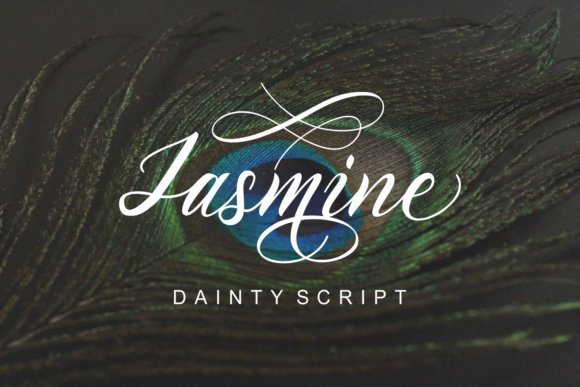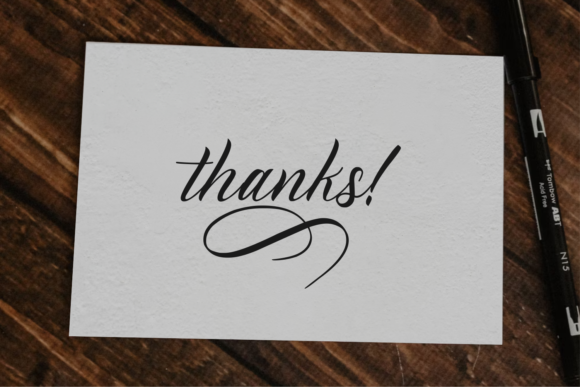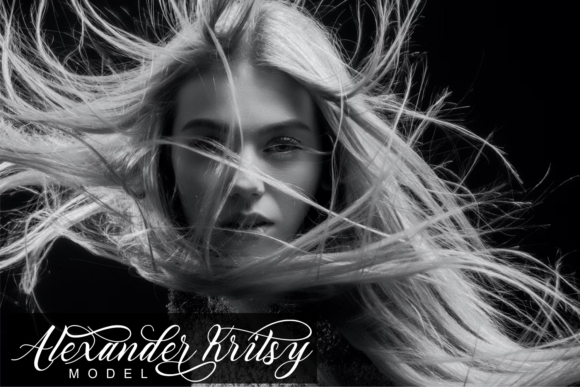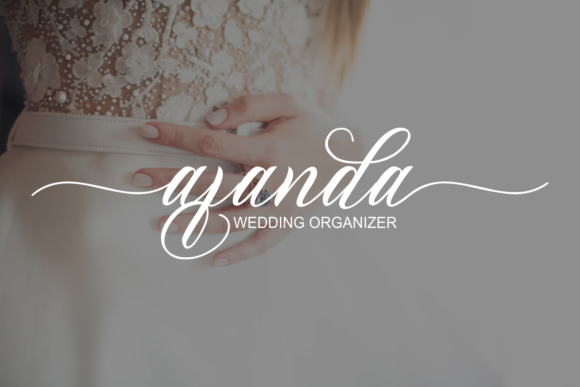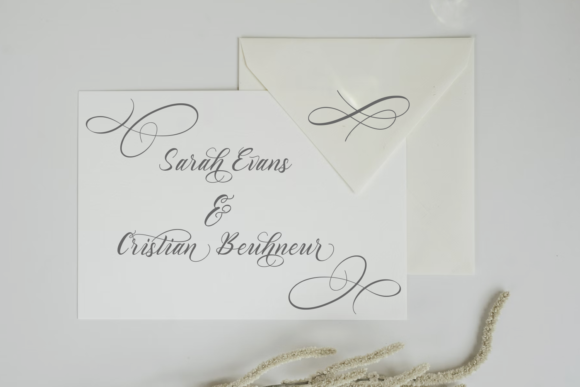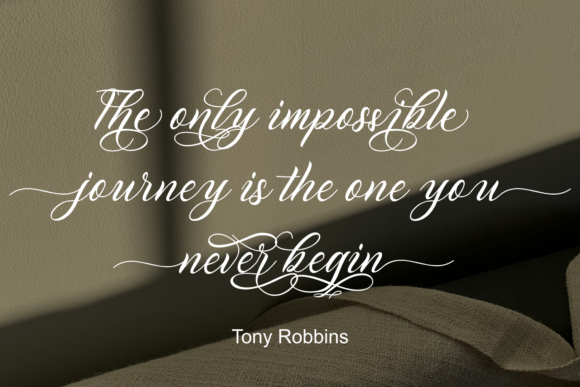
Jasmine Font
About Jasmine Font
Jasmine is a dainty and chic script font. It is perfect for labels, upscale packaging, wedding stationery, invitations, business cards, branding and other projects that require a luxurious touch.